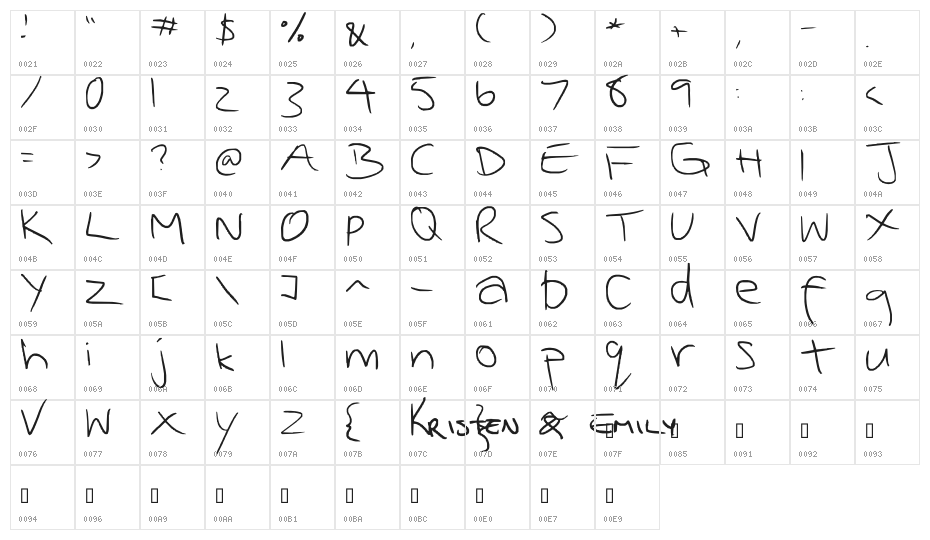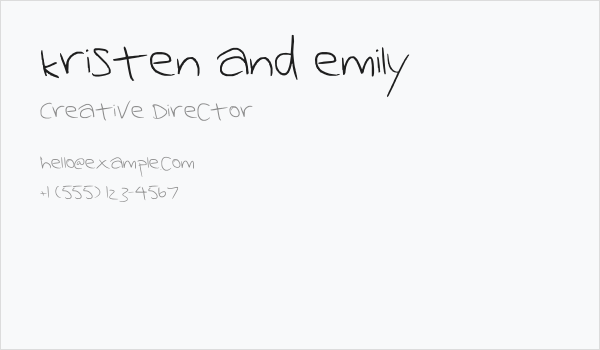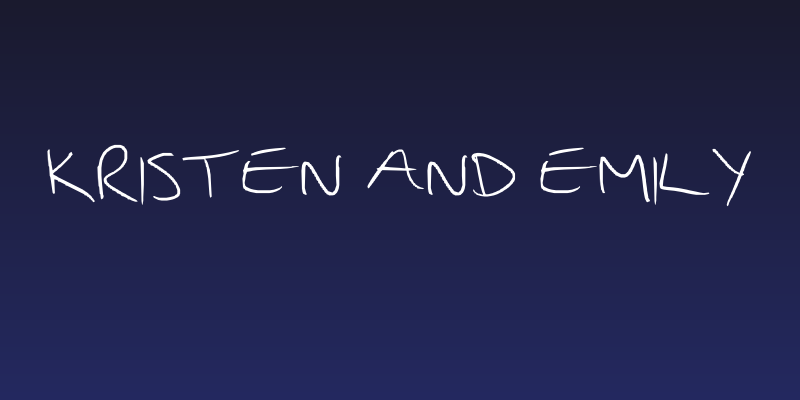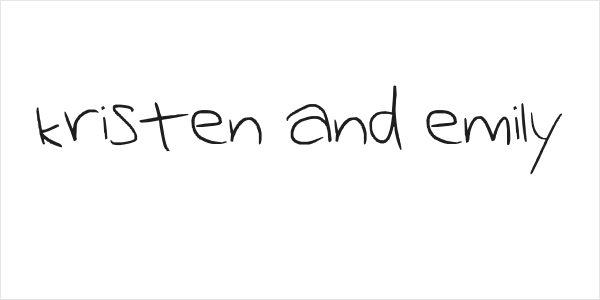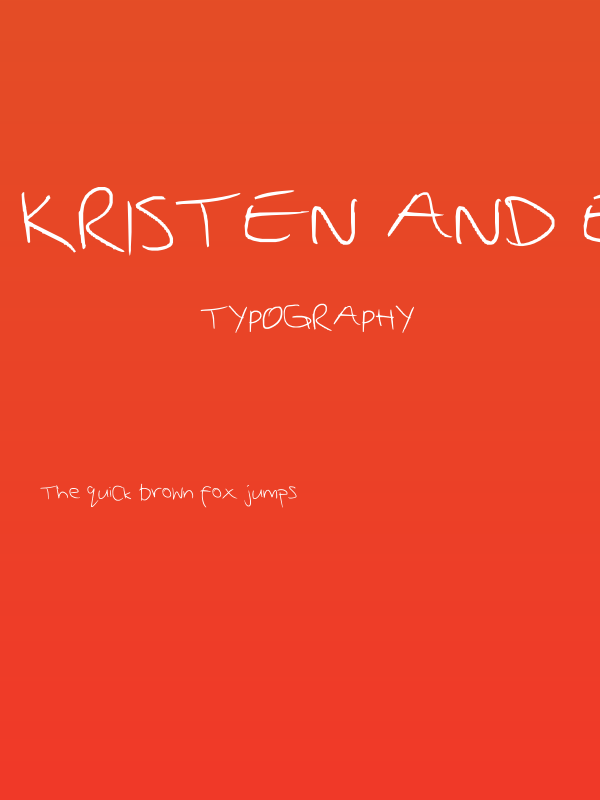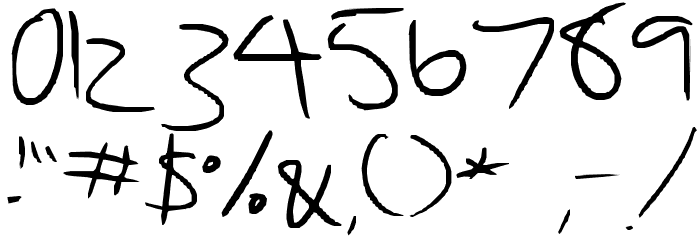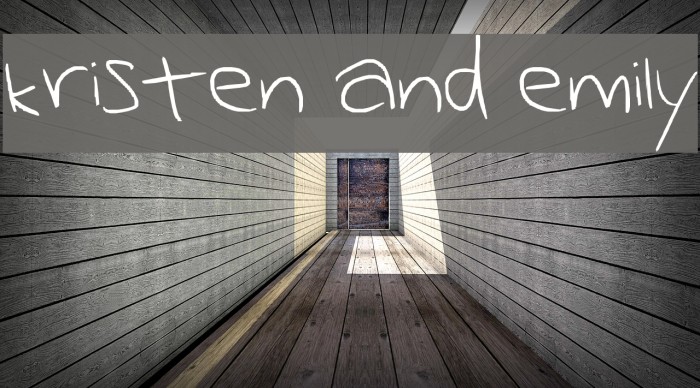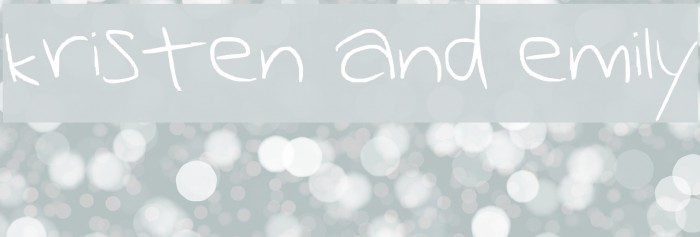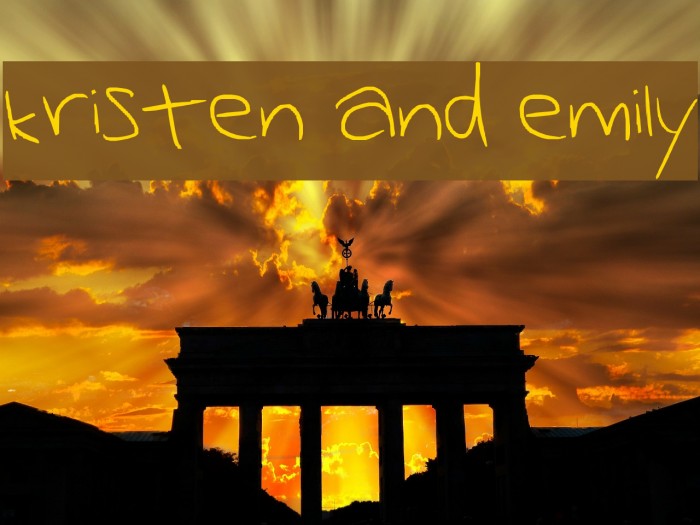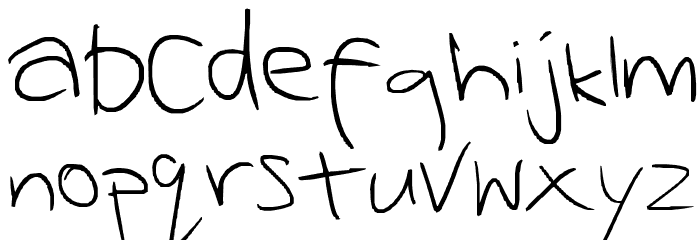
kristen and emily Font
kristen and emily Description
This font exhibits a casual, handwritten style with a playful and informal appearance. The strokes are uneven and slightly irregular, giving it a personal and authentic feel. The characters are loosely spaced, enhancing its relaxed and approachable vibe. The uppercase letters are bold and prominent, while the lowercase letters maintain a consistent flow, adding to the font's charm. Numbers and special characters are crafted with the same informal touch, making it versatile for various creative applications.
| Overall Style | Casual |
| Use Case | Logos, Invitations, Posters |
| Proposed Projects | Ideal for personal notes, greeting cards, children's books, and creative projects that require a friendly and approachable touch. |